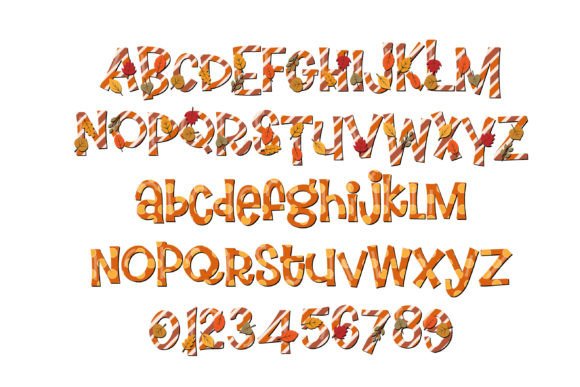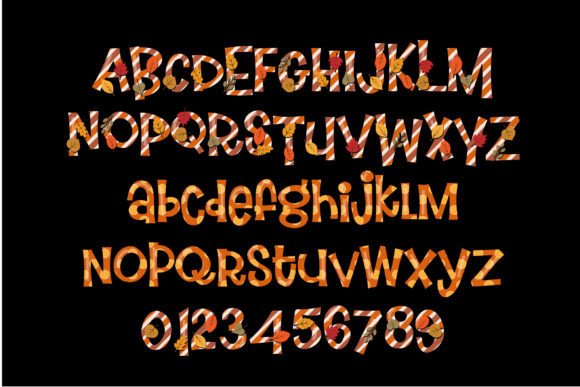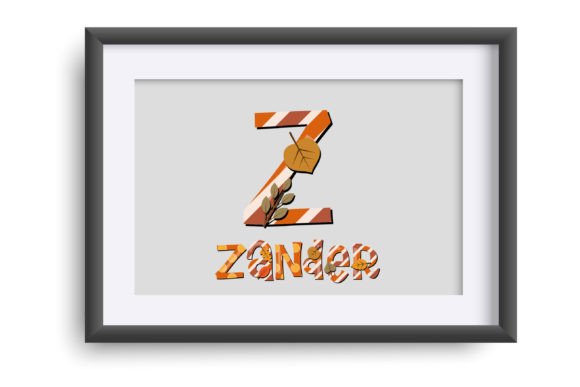
Introduction to Jolly Fally Font
This full-color font features fun striped and polka dot lettering in an autumn color palette.
There is an alt version of each letter in a different color that you can access through your system character map.
Why Choose Jolly Fally Font?
Jolly Fally Font offers exceptional quality and versatility, making it a valuable addition to your design toolkit. Whether you’re creating for personal projects or commercial use, Jolly Fally Font delivers professional results.